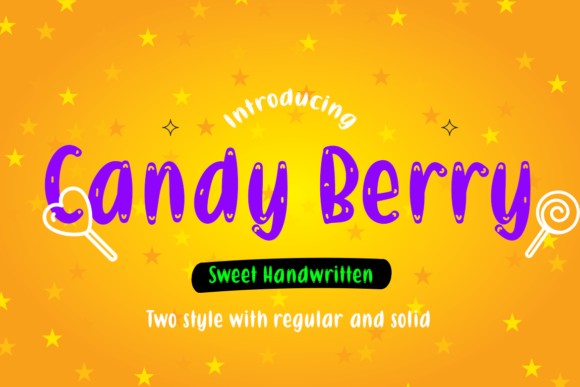
Candy Up Your Designs with the Sweetest Font Around
Have you ever stared at a blank canvas, feeling like your creative spark has fizzled out? Maybe you’ve been brainstorming ideas for a new project, but nothing seems to stick. That’s when I turn to my trusty font collection – and today, I want to introduce you to the star of the show: the Candy Berry Font.
This delightful display font is the perfect companion for designers looking to add a touch of whimsy to their work. With its fun, bubbly, and cute aesthetic, the Candy Berry Font can elevate even the most mundane designs into something truly special. Whether you’re working on a birthday card, a social media campaign, or a children’s book, this font is sure to make your project stand out from the crowd.
Candy Berry Font Key Features
- Font Family: A unique, hand-drawn font family with a playful and whimsical feel.
- Unique Characteristics: Features a distinctive, swirly design with rounded edges and a mix of uppercase and lowercase letters.
Candy Berry Font Review
I recently had the chance to work with the Candy Berry font, and here’s my honest take.
- Candy Berry’s playful, whimsical vibe is perfect for projects that need a touch of sweetness.
- The font’s unique, hand-drawn feel adds a lot of character to text, making it stand out from more generic fonts.
- The font’s bold and italic styles are well-designed and offer a nice range of options for varying text emphasis.
- The font may not be ideal for projects that require a lot of subtlety, as its playful nature can sometimes feel overwhelming.
- The font’s letter spacing can be a bit tight in certain situations, which may affect readability.
Overall, I think the Candy Berry font is a great choice for projects that need a touch of personality. While it may not be suitable for every project, it’s a fun and creative option that can add a lot of visual interest to text. With some careful planning and consideration of its limitations, I think it can be a valuable addition to any designer’s toolkit.
Tips for Getting the Most Out of the Candy Berry Font
Use the Candy Berry Font for playful and whimsical designs, such as:
– Children’s party invitations
– Food labels and packaging
– Social media graphics and ads
Experiment with different font sizes and colors to achieve the desired effect.
The Candy Berry Font is ideal for:
– Social media content
– Event promotions and invitations